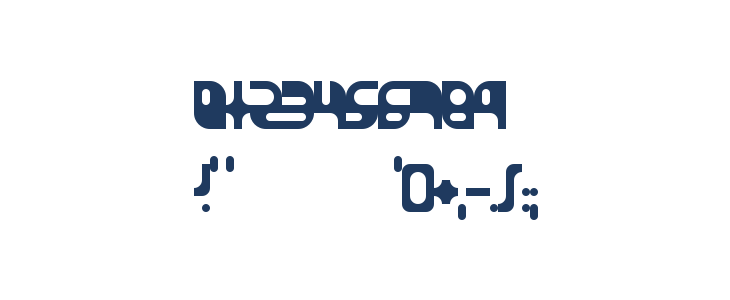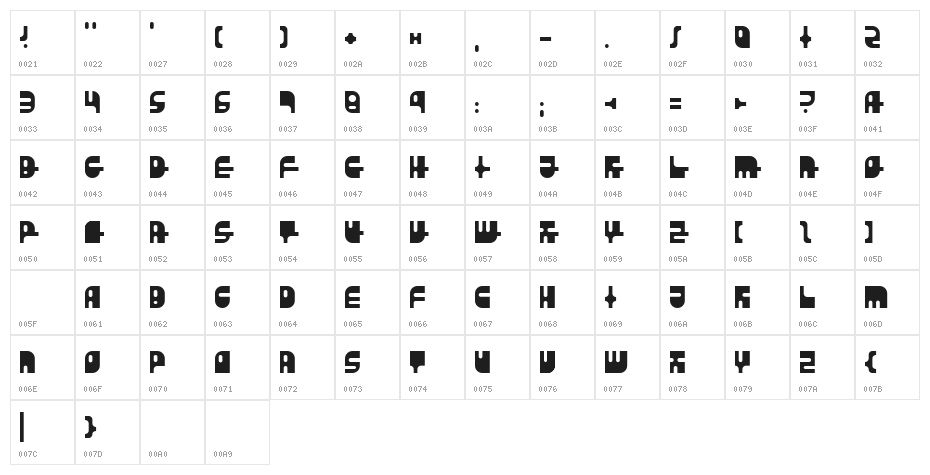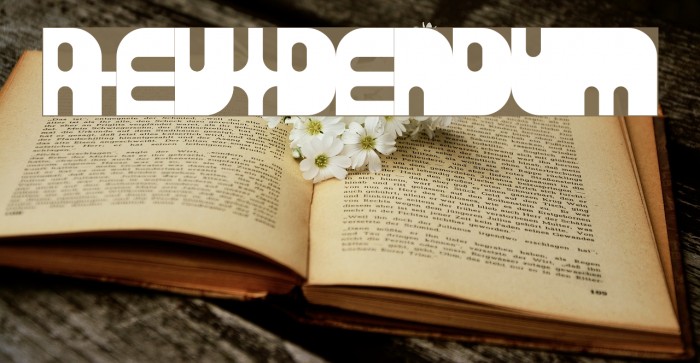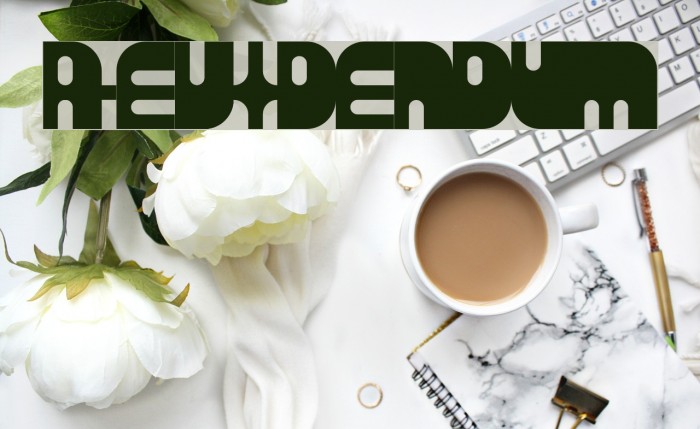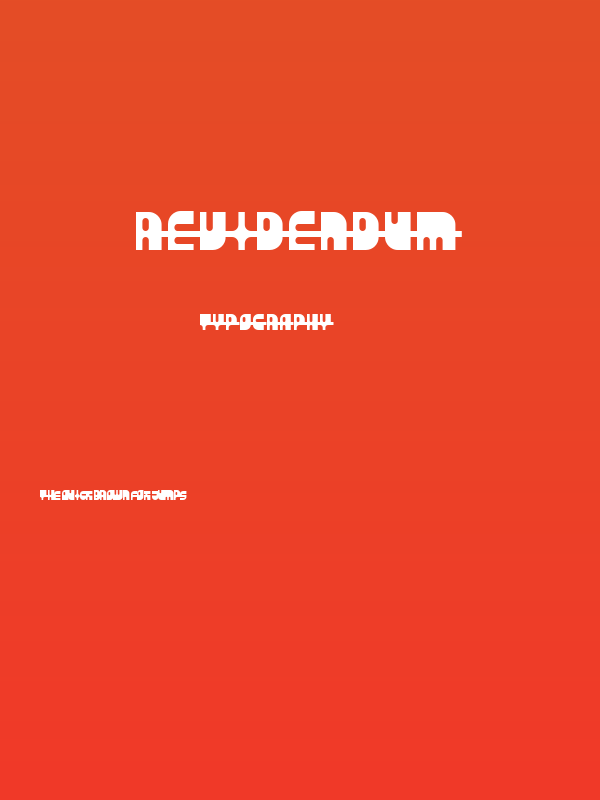
Revidendum Font
Revidendum Description
This font features a bold, geometric design with a futuristic and avant-garde aesthetic. The characters are constructed with thick, uniform strokes and rounded edges, creating a cohesive and modern look. The uppercase and lowercase letters share a similar structure, emphasizing the font's unique style. The numbers and special characters are equally bold and distinctive, maintaining the overall design theme. This font's striking appearance makes it ideal for projects that require a strong visual impact.
| Proposed Projects | Ideal for branding, posters, album covers, and any design requiring a modern, impactful look. |